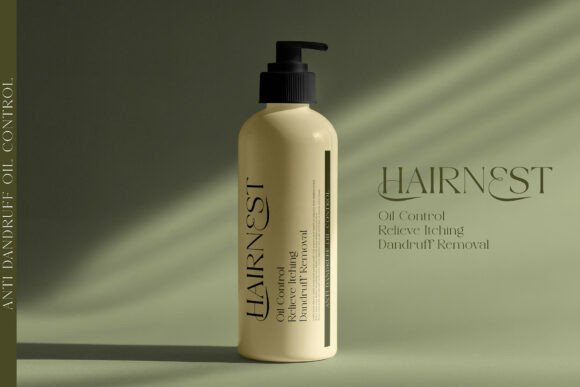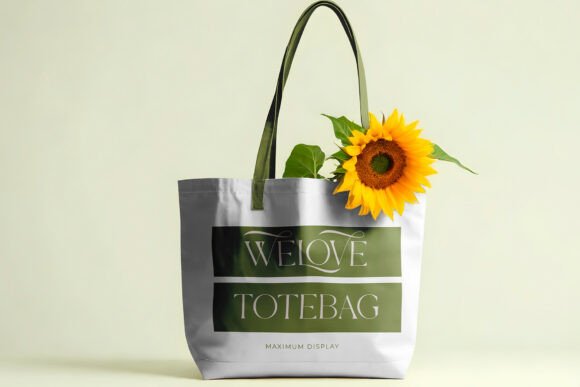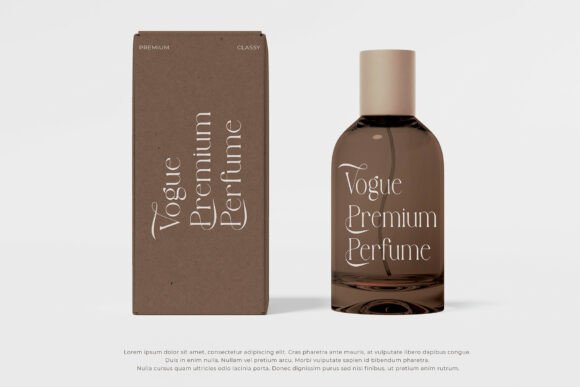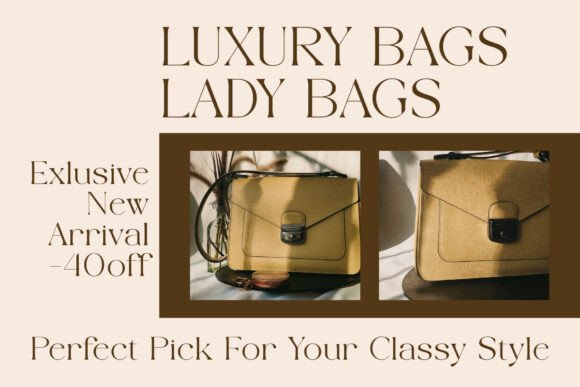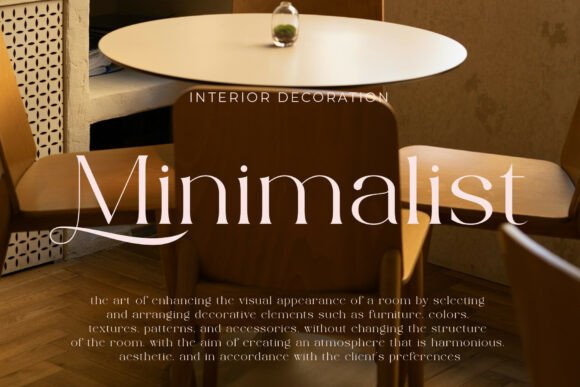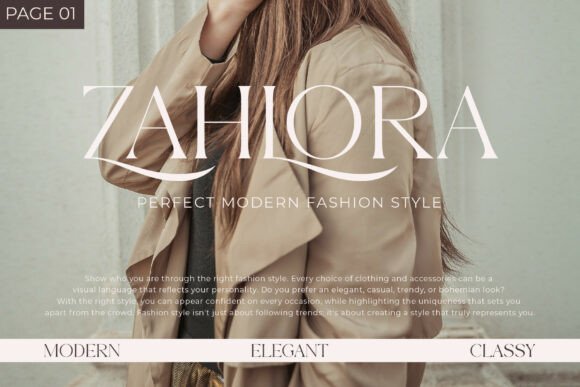
Unveiling the Elegance of Glower Font: Elevate Your Brand with Timeless Sophistication
In the realm of typography, few fonts manage to capture the essence of luxury and elegance as effortlessly as Glower Font. This stunning typeface is designed to transform your visual identity with its high-contrast strokes, fluid swashes, and breathtaking silhouette. Whether you’re a designer, craftsperson, or brand owner, Glower Font promises to imbue your projects with a dreamlike, high-fashion aesthetic that’s sure to leave a lasting impression.
The Distinctive Features of Glower Font
Glower Font boasts a unique blend of characteristics that set it apart from other typefaces. Its high-contrast strokes create a dramatic visual effect, drawing attention to the subtle nuances of your message. The fluid swashes that weave through the letterforms like silk add a touch of fluidity and movement, infusing your text with a sense of dynamism and energy.
One of the most striking features of Glower Font is its sweeping tails, which lend an air of sophistication and refinement to your typography. These elegant tails, combined with the font’s balanced geometry, create a sense of harmony and poise that’s perfect for luxury brands, high-end editorials, and artisanal products.
Crafting a Legendary Presence with Glower Font
Glower Font is more than just a typeface – it’s a statement of intent. With its polished, artisanal beauty and timeless grace, this font ensures that every headline, title, or caption carries a signature presence that’s both memorable and impactful. Whether you’re looking to create a stunning visual identity for your luxury boutique, craft exquisite skincare packaging, or elevate your editorial layouts, Glower Font is the perfect choice.
Imagine being able to convey the essence of your brand with a single, elegant gesture. Glower Font makes this possible, allowing you to distill the essence of your message into a beautiful, high-fashion aesthetic that’s sure to captivate your audience. From ethereal social media headers to high-end editorial spreads, Glower Font brings a level of sophistication and refinement that’s hard to match.
Applications for Glower Font: Where Luxury Meets Artisanal
Glower Font’s versatility is one of its greatest strengths, making it suitable for a wide range of applications where luxury and artisanal craftsmanship intersect. Some of the ideal uses for Glower Font include:
- Luxury boutique branding: Create a stunning visual identity for your high-end boutique with Glower Font’s elegant, sophisticated aesthetic.
- Artisanal skincare packaging: Elevate your skincare products with Glower Font’s polished, refined typography.
- High-end editorial layouts: Add a touch of glamour and sophistication to your editorial spreads with Glower Font’s breathtaking silhouette.
- Ethereal social media headers: Create a lasting impression on your social media followers with Glower Font’s dreamlike, high-fashion aesthetic.
Conclusion: Elevate Your Design with Glower Font
In conclusion, Glower Font is a game-changer for designers, craftspersons, and brand owners looking to elevate their visual identity with a touch of luxury and sophistication. Its unique blend of high-contrast strokes, fluid swashes, and sweeping tails creates a timeless, artisanal aesthetic that’s sure to leave a lasting impression. Whether you’re looking to create a stunning visual identity, craft exquisite packaging, or elevate your editorial layouts, Glower Font is the perfect choice. Discover the elegance of Glower Font today and transform your design with its breathtaking beauty.